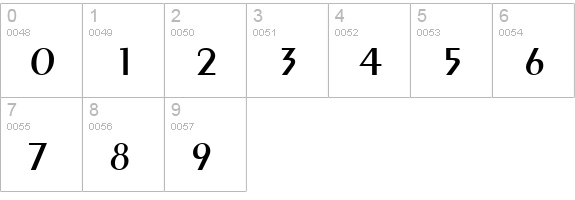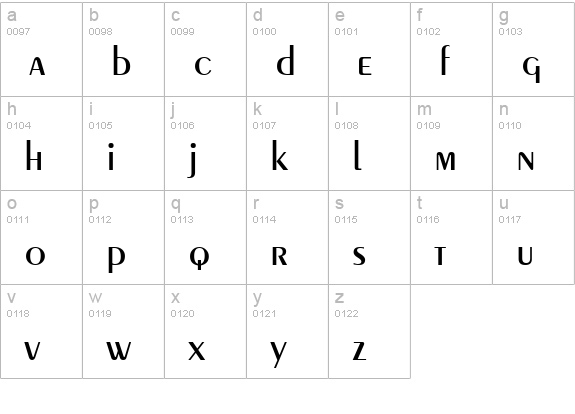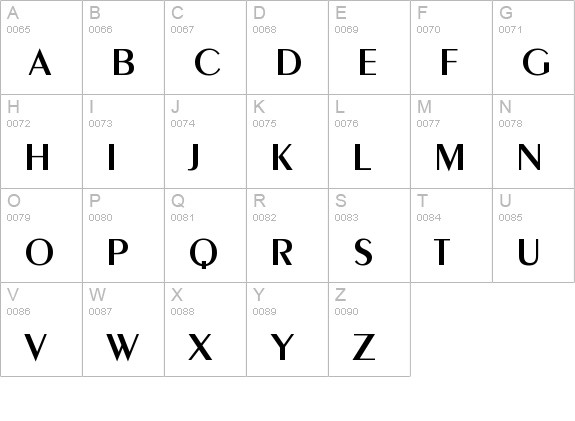
Moore Mary font is a beautifully crafted typeface that exudes elegance and sophistication. With its sleek lines and modern yet timeless design, this font is perfect for adding a touch of class to any project. Whether you're creating a stylish logo, designing a chic invitation, or crafting a professional presentation, Moore Mary font is sure to make a statement. The best part? Moore Mary font is available for free download at FontsMarket.com. Simply head over to the website and get your hands on this stunning font without spending a dime. With its versatility and stunning aesthetic, Moore Mary font is a must-have for any designer looking to elevate their work to the next level. Download it today and start creating beautiful designs with ease.